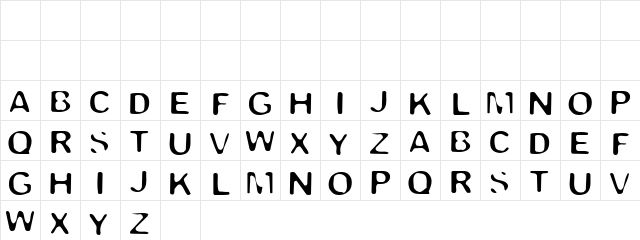
Trapped Light Free Font
Trapped Light
Design Context for Trapped
Trapped is a composed and adaptable typeface that performs quietly and consistently across a wide range of design contexts. Its slender proportions lend an understated elegance to any composition.